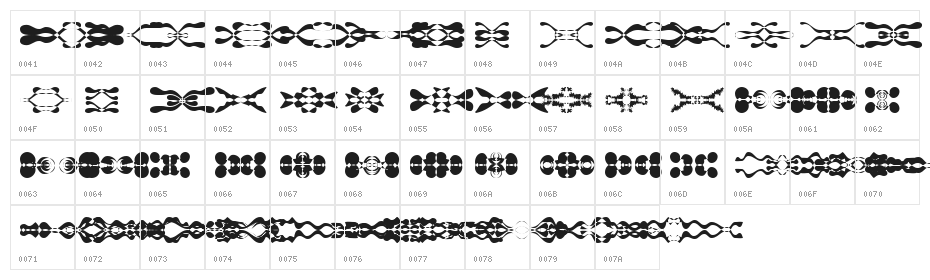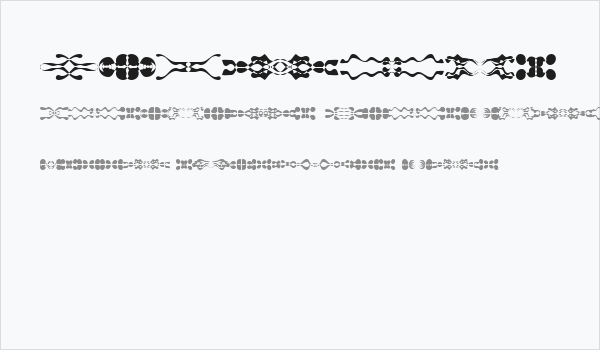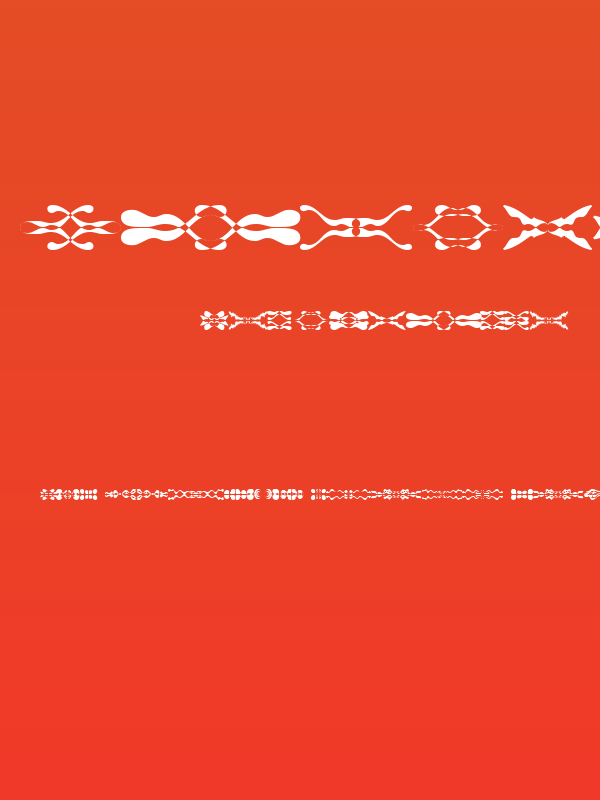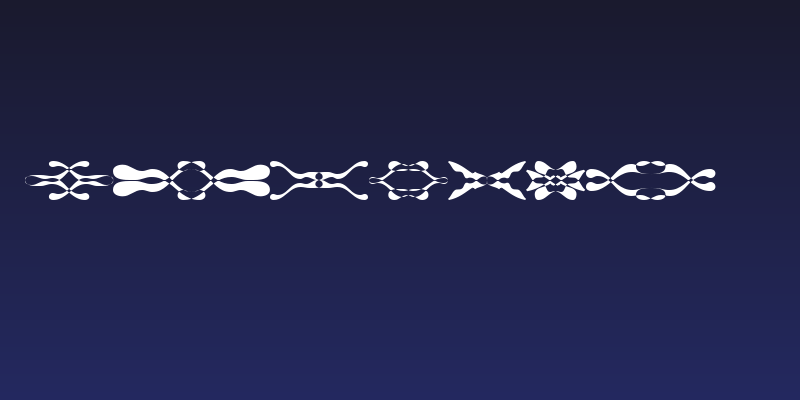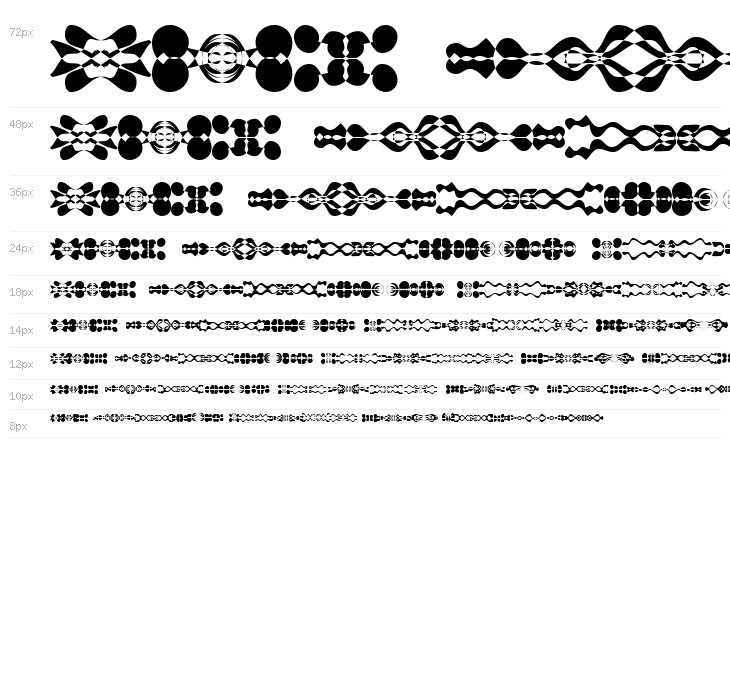
LaMorte11 Font
LaMorte11 Description
This is not a valid font. The image appears to display a series of decorative patterns or symbols rather than recognizable alphanumeric characters. The design is intricate and abstract, lacking the typical structure and form of a standard typeface. It seems to be more of an artistic or ornamental design rather than a functional font for text representation.
| Use Case | Artistic designs, Decorative elements |
| Proposed Projects | This design could be used for decorative borders, artistic projects, or abstract art pieces. |